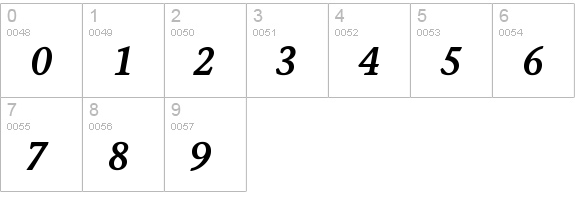
Stone Informal Semi Bold Italic Font Details
Stone Informal Semi Bold Italic is a strong, high-contrast, italic variant in the Stone typeface family \xE2\x80\x94 well suited to headlines, attention-grabbing titles, and strong calls-to-action.
Stone Informal Semi Bold Italic is a versatile and modern font that combines the informal feel with a touch of sophistication. This font exudes a sense of boldness and creativity, making it perfect for a wide range of design projects. Its semi-bold weight adds a strong presence to any text while the italic style adds a dynamic and unique flair. Whether you are designing a logo, poster, or website, Stone Informal Semi Bold Italic will surely make your text stand out. Its clean lines and subtle curves create a harmonious balance that is both eye-catching and easy to read. This font is ideal for conveying a sense of modernity and style in your designs. The best part is that Stone Informal Semi Bold Italic is available for free download at FontsMarket.com. So, you can easily access this high-quality font and use it in your projects without any cost. Don't miss out on the opportunity to enhance your designs with this beautiful and versatile typeface. Download Stone Informal Semi Bold Italic today and take your design to the next level!